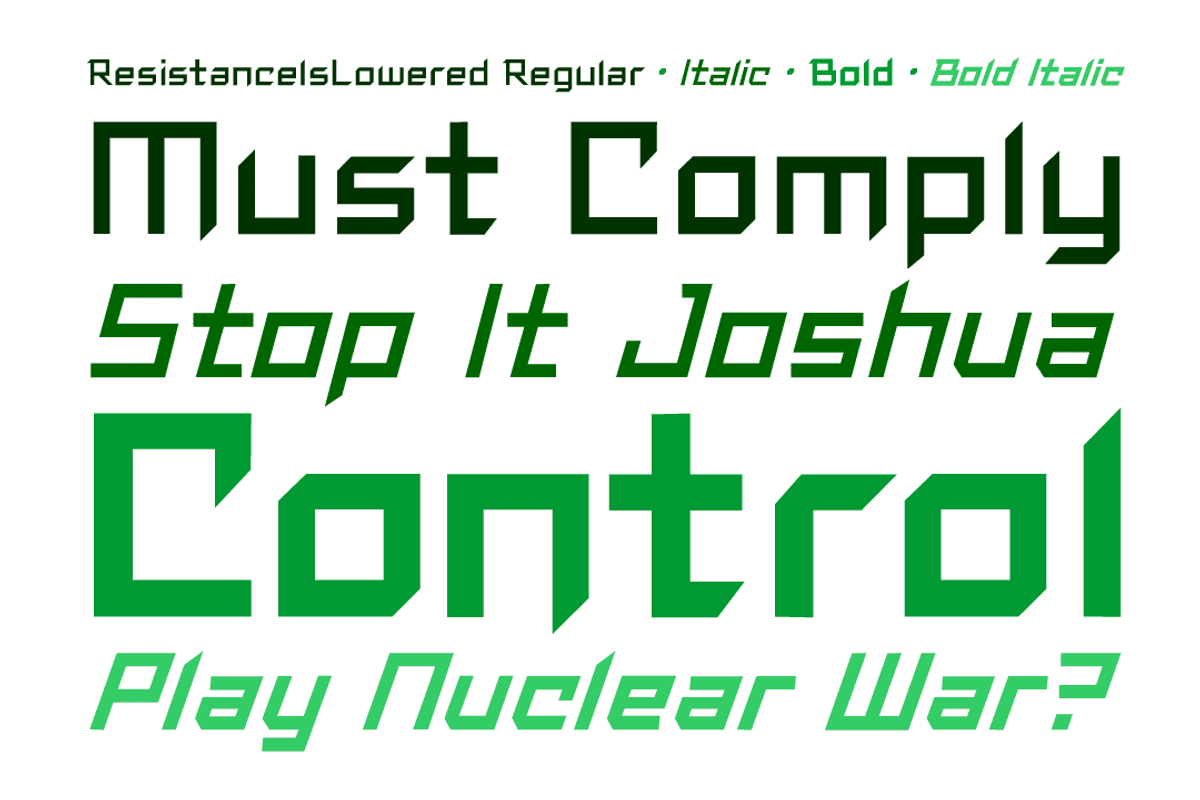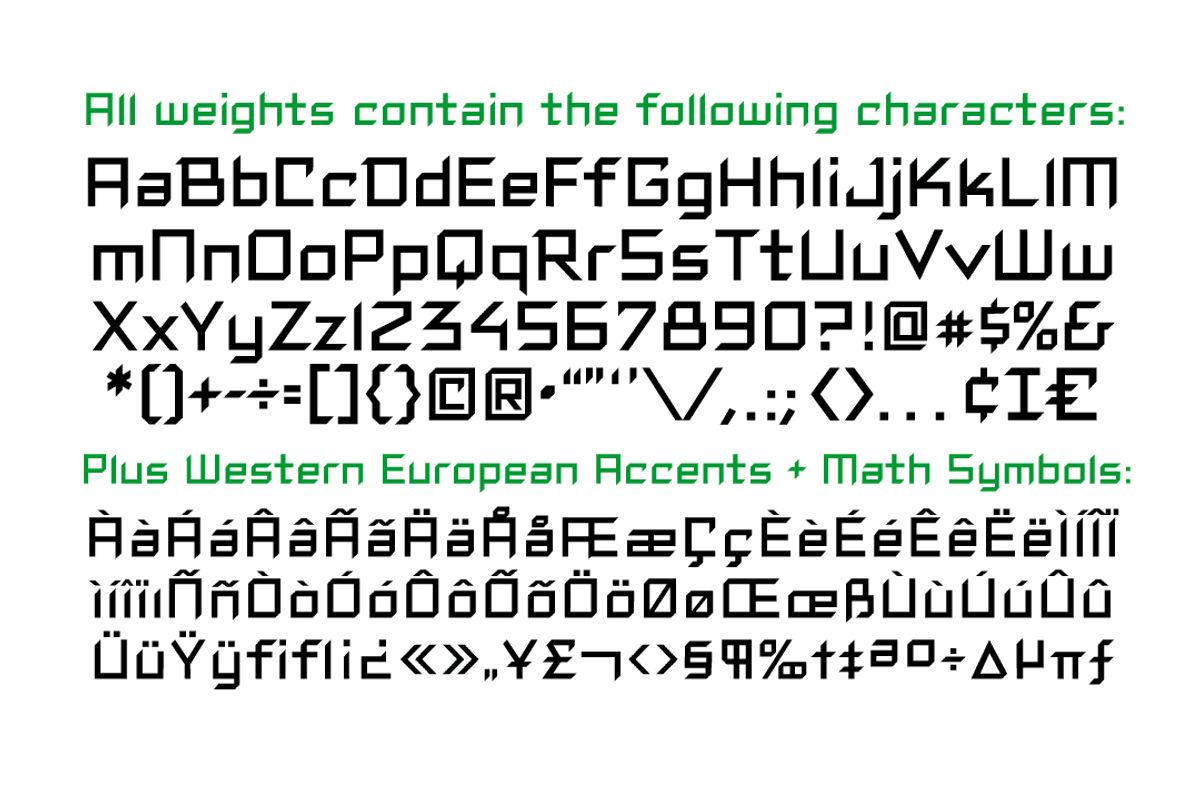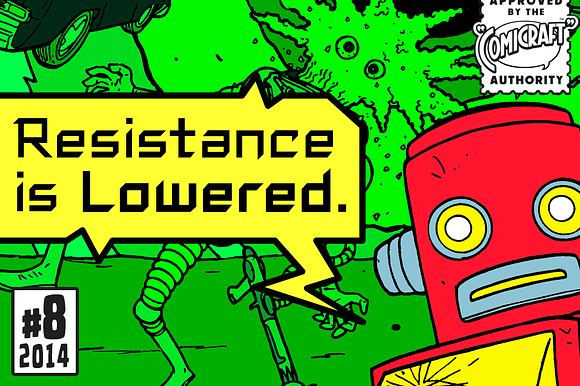
Resistance Is Lowered
Lower your shields and surrender your ships. You will talk to your central world authority in upper AND lower case, and order global surrender. Your culture will adapt to serve us in sentence case. You will not shout in UPPER CASE as before. You will be upgraded. You will become like us. Upgrading RESISTANCE IS FUTILE to RESISTANCE IS LOWERED is compulsory. There is no escape.
- Features Four weights (Regular, Italic, Bold & Bold Italic) with upper and lowercase characters.
Resistance Is Lowered by Comicraft Fonts fits naturally into Branding, posters, packaging, typography.